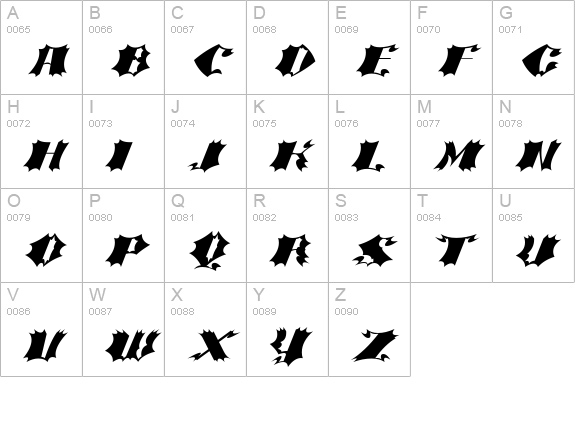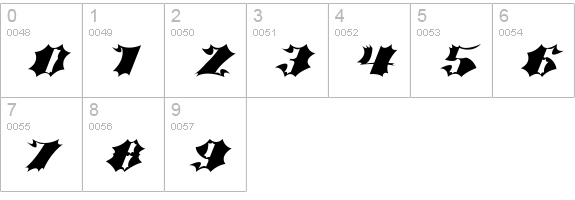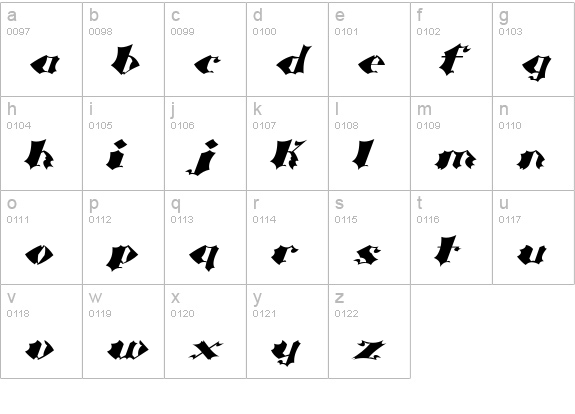
Crash Bold is a strong, high-contrast variant in the Crash typeface family \xE2\x80\x94 well suited to headlines, attention-grabbing titles, and strong calls-to-action.
Introducing Crash Bold font, a striking and attention-grabbing typeface that exudes confidence and boldness. With its sharp edges and strong presence, Crash Bold is perfect for making a statement in headlines, titles, and branding materials. This versatile font is sure to captivate your audience and leave a lasting impression. The best part? Crash Bold is available for free download at FontsMarket.com, where you can easily access this dynamic font to elevate your designs. Don't miss out on the opportunity to add Crash Bold to your font collection and bring your projects to the next level with its impactful aesthetic.